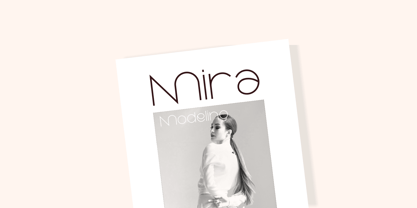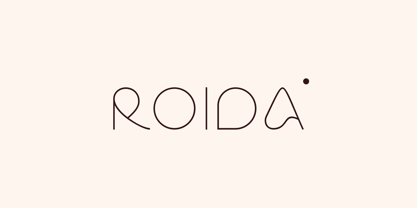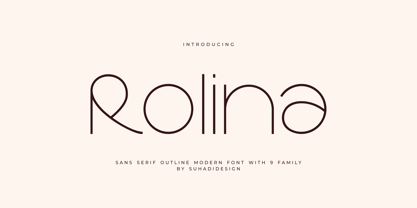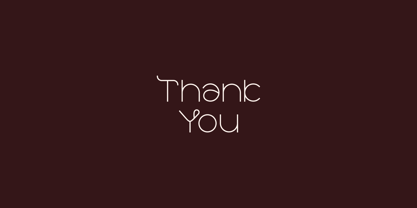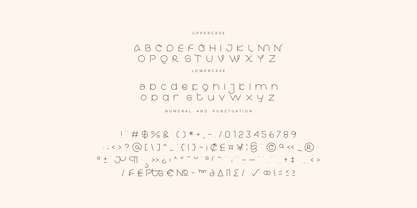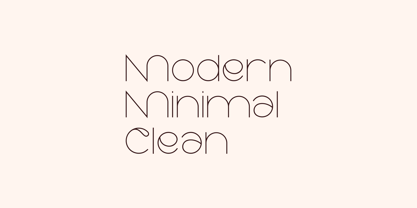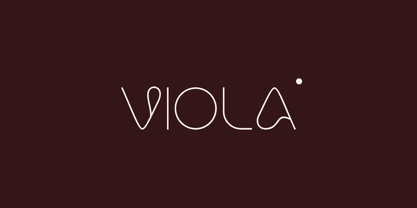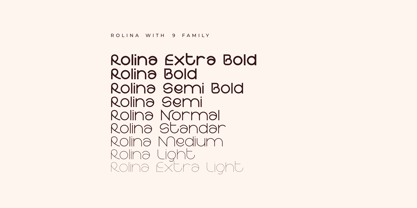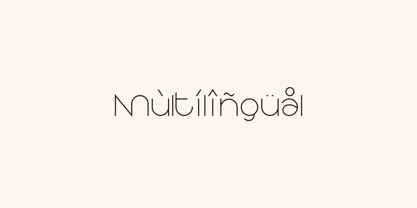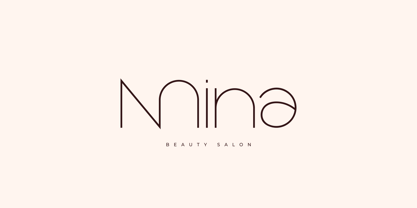
Rolina Semi Bold
by suhadidesign
The Rolina Semi Bold Font Family was designed by ahmad suhadi and published by suhadidesign. Rolina Semi Bold contains 9 styles and family package options.
Rolina - Outline Family Font
The latest stylish modern font has arrived, widely used by both women and men. This is the Rolina font. Rolina is a minimalist and stylish sans serif font. With its clean and contemporary design, this font has become a favorite in the market. We have maintained this font's elegant, classy, ​​and stylish look. Rolina is the perfect choice for cosmetics, beauty, brands, logos, wordmarks, magazines, designs, books, publications, branding, brand names, business cards, social media, classy designs, newspapers, branding, beauty, and other projects. Rolina is here to elevate the quality of your designs.
Features:
• Uppercase Letters
• Lowercase Letters
• 9 Families
• Multilingual Support
• Numbers
• Punctuation
Designers: ahmad suhadi
Publisher: suhadidesign
Foundry: suhadidesign